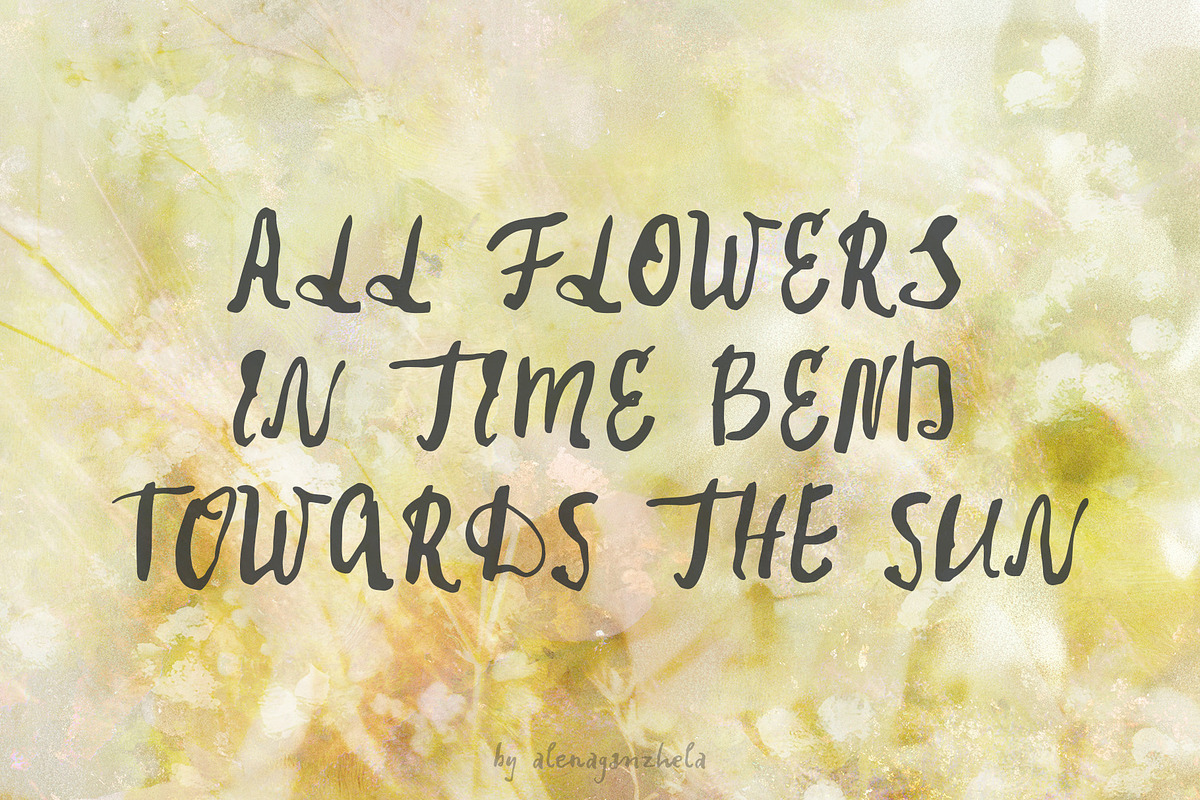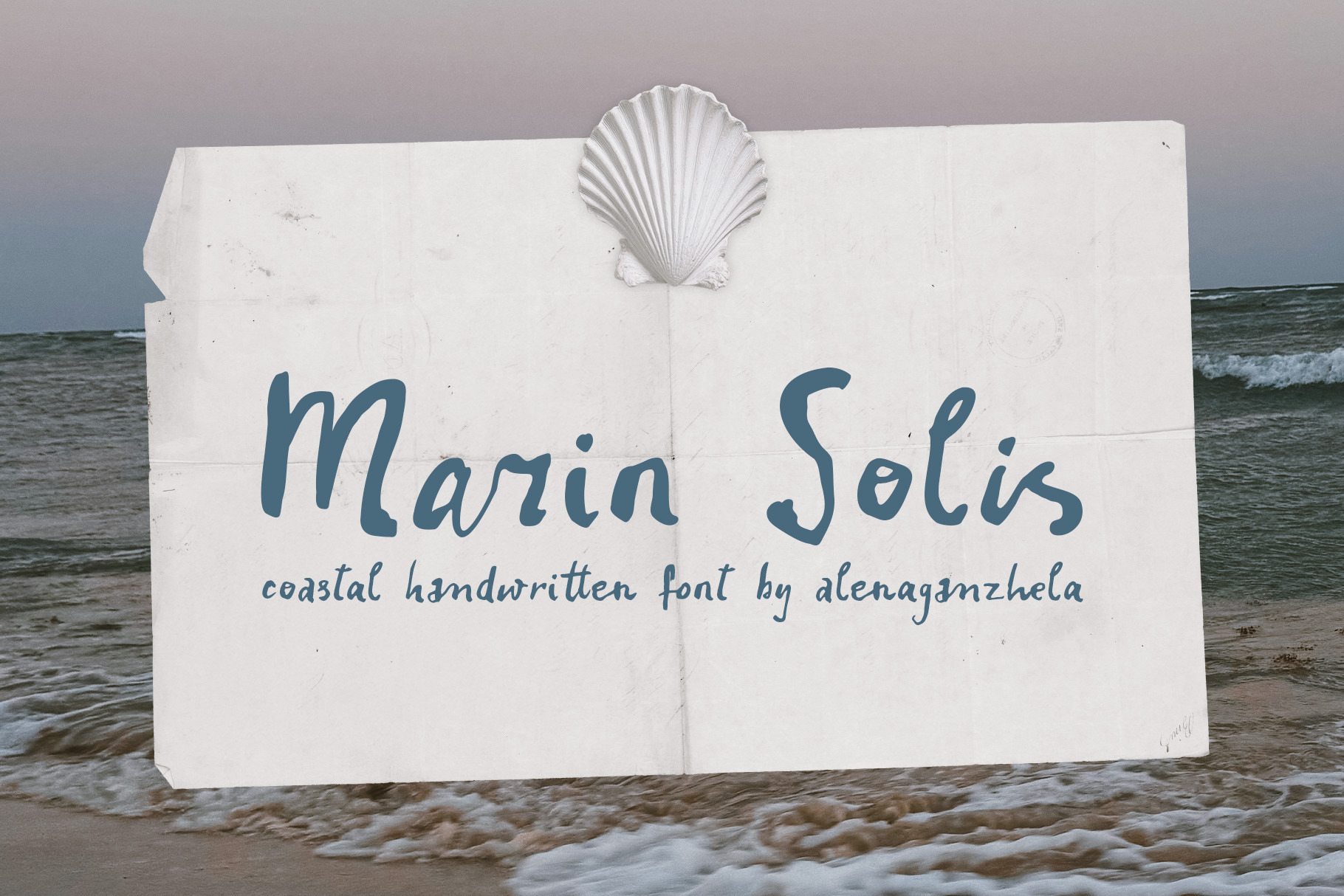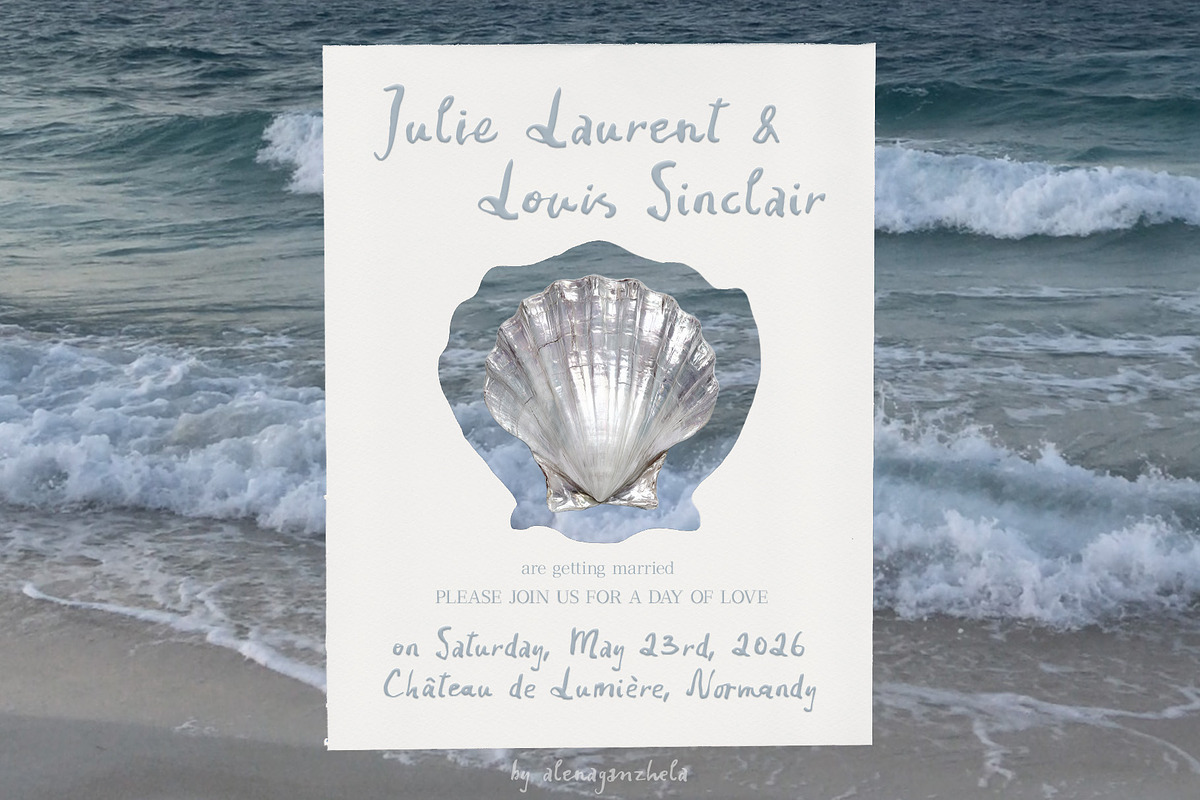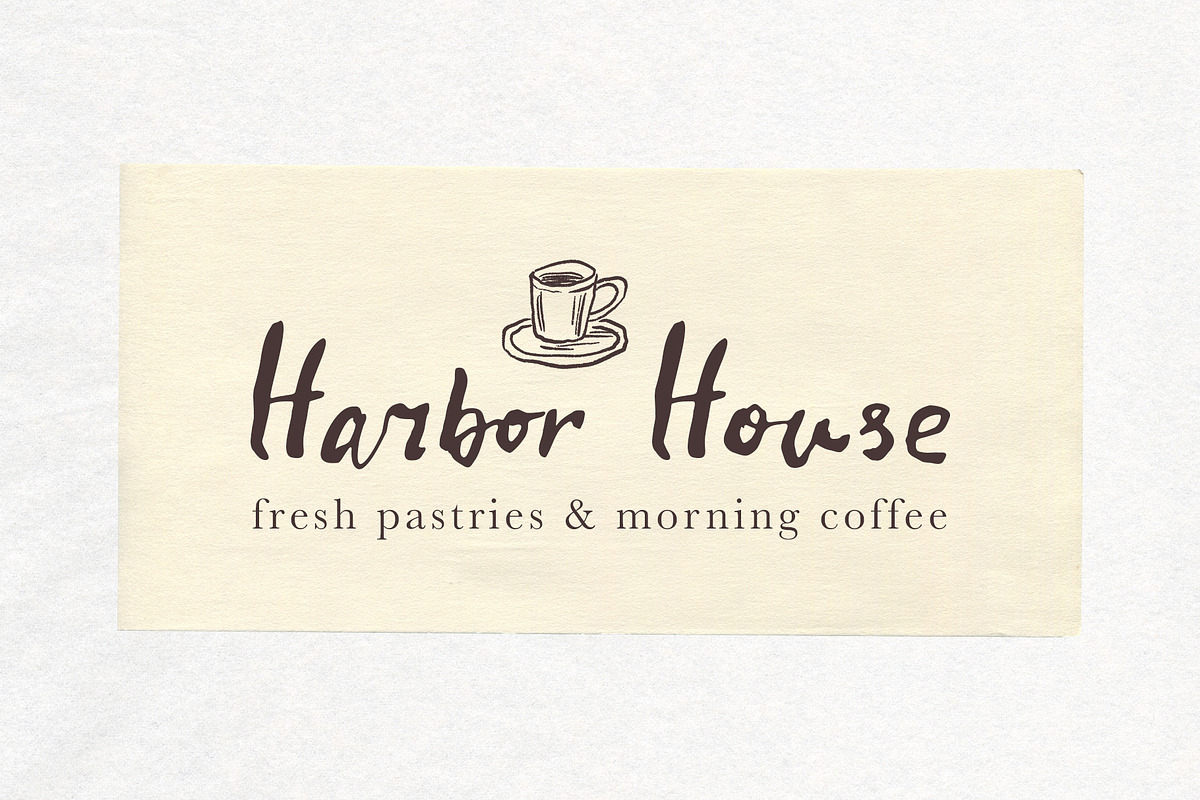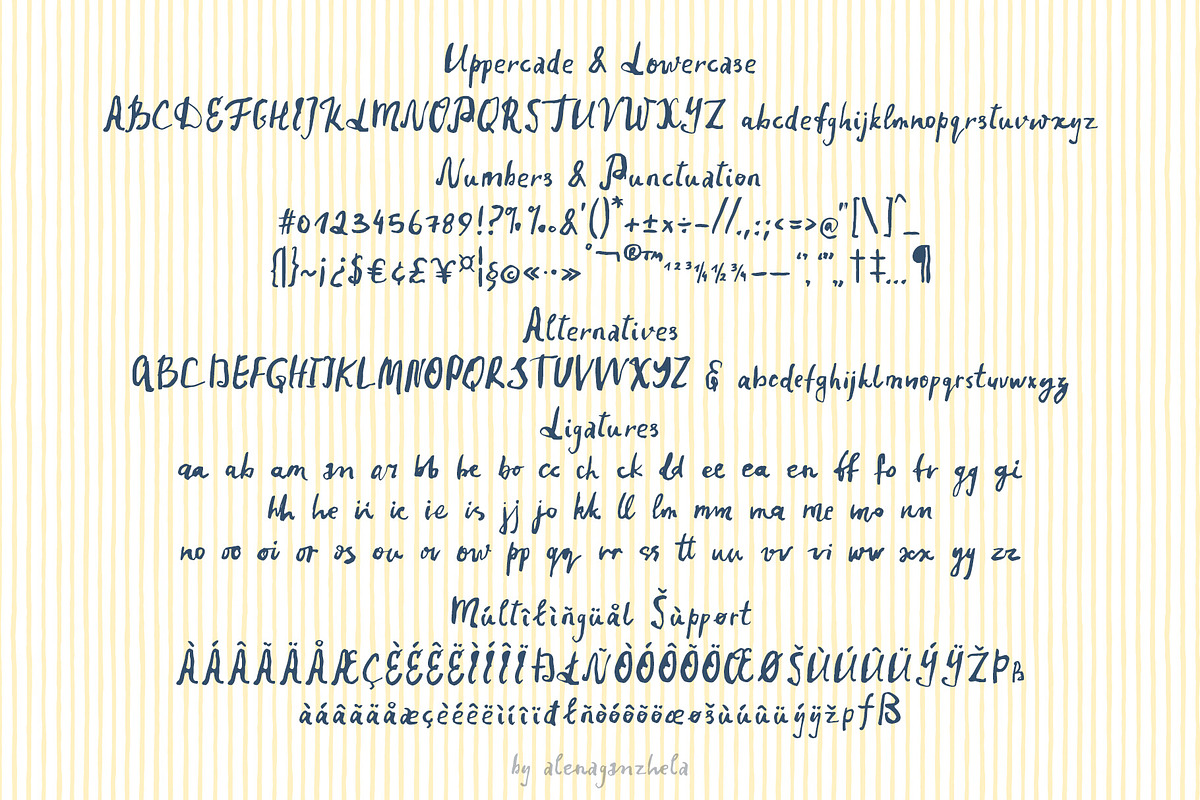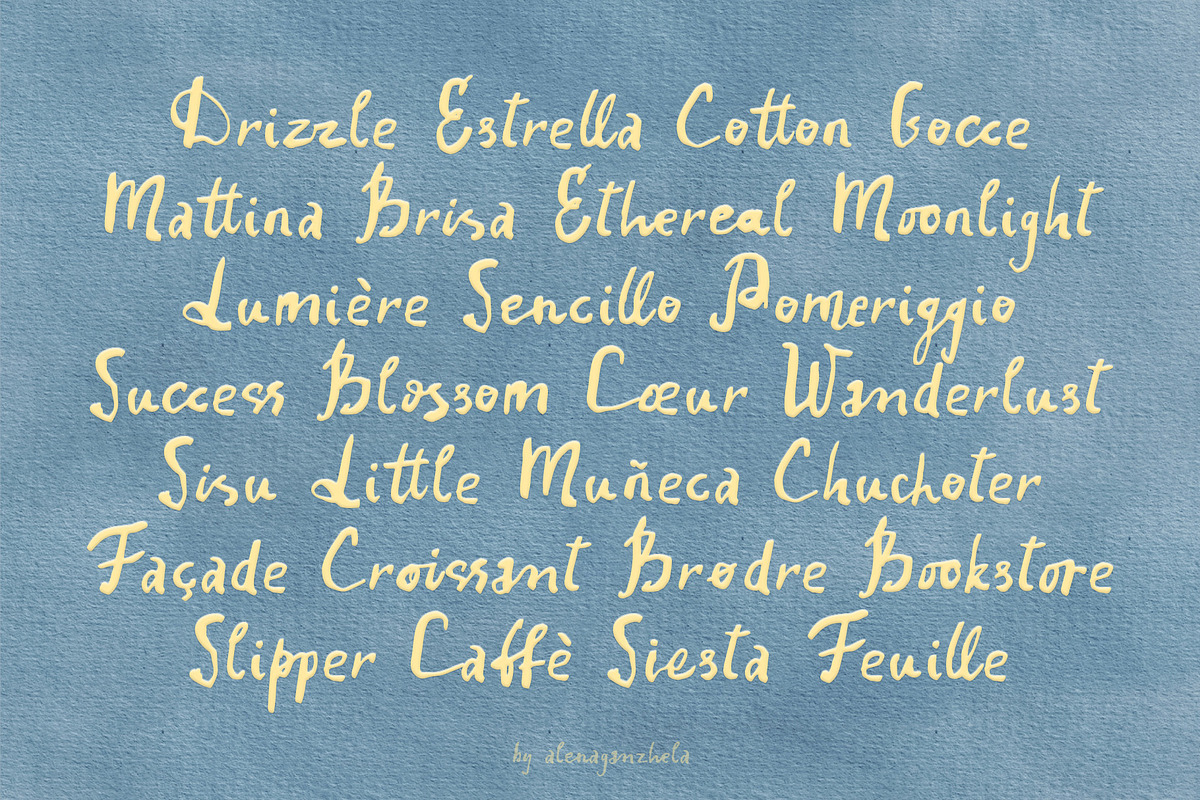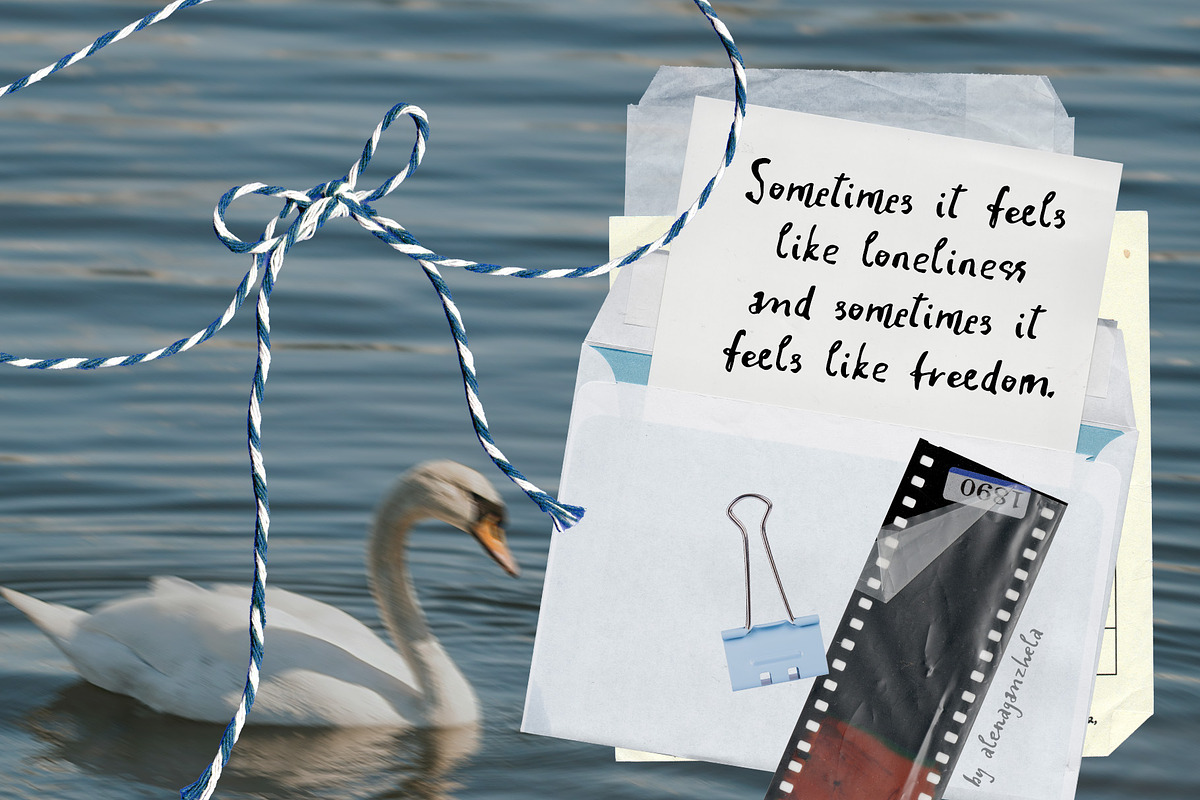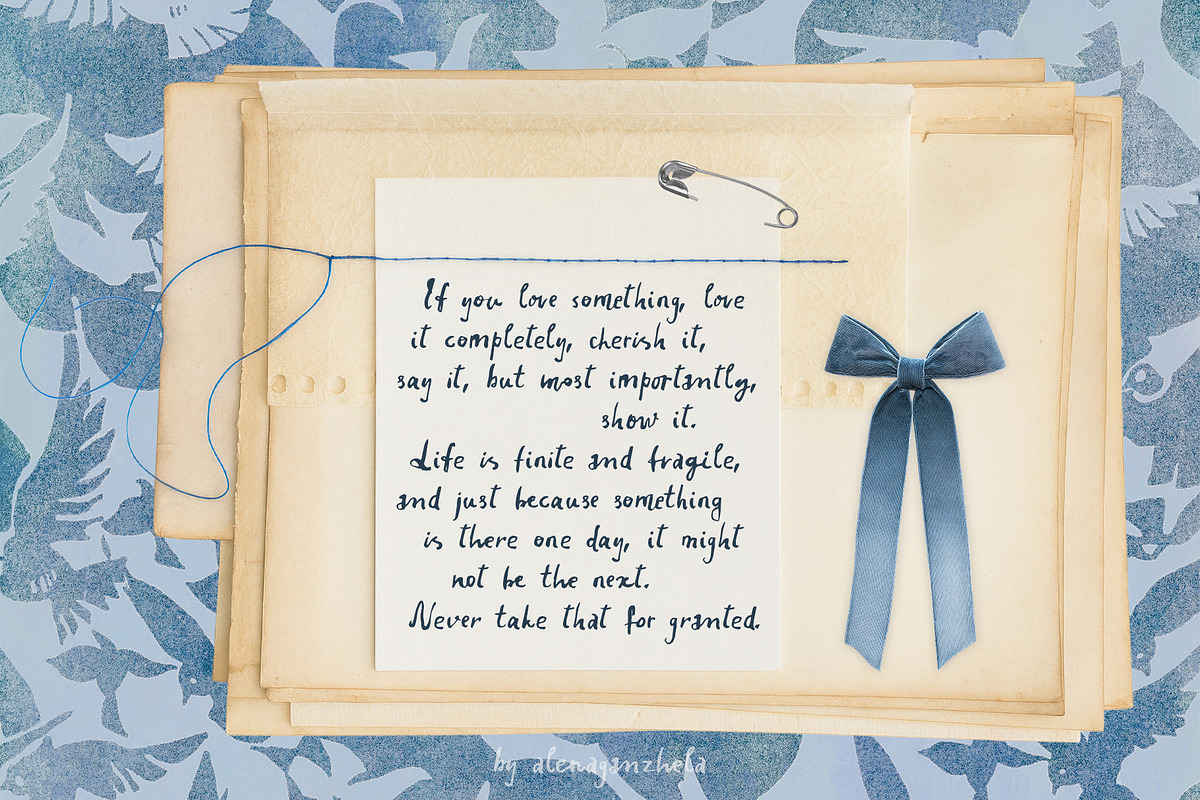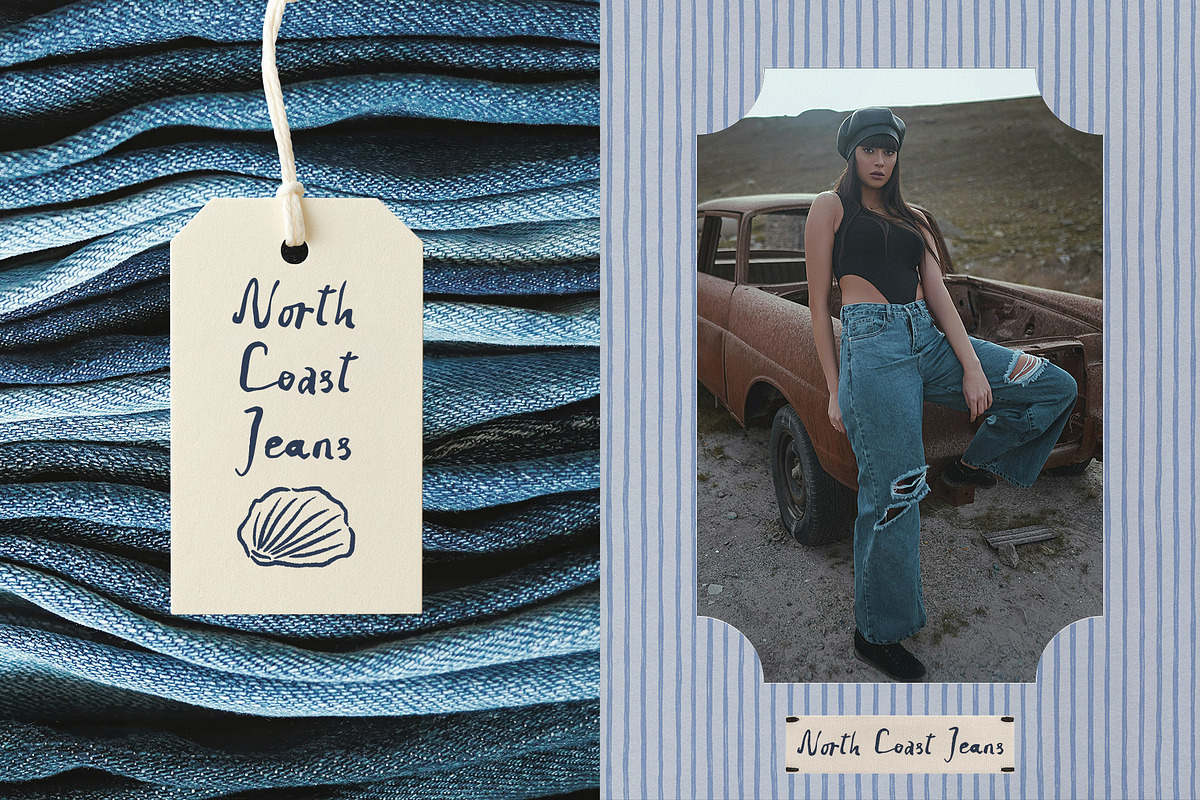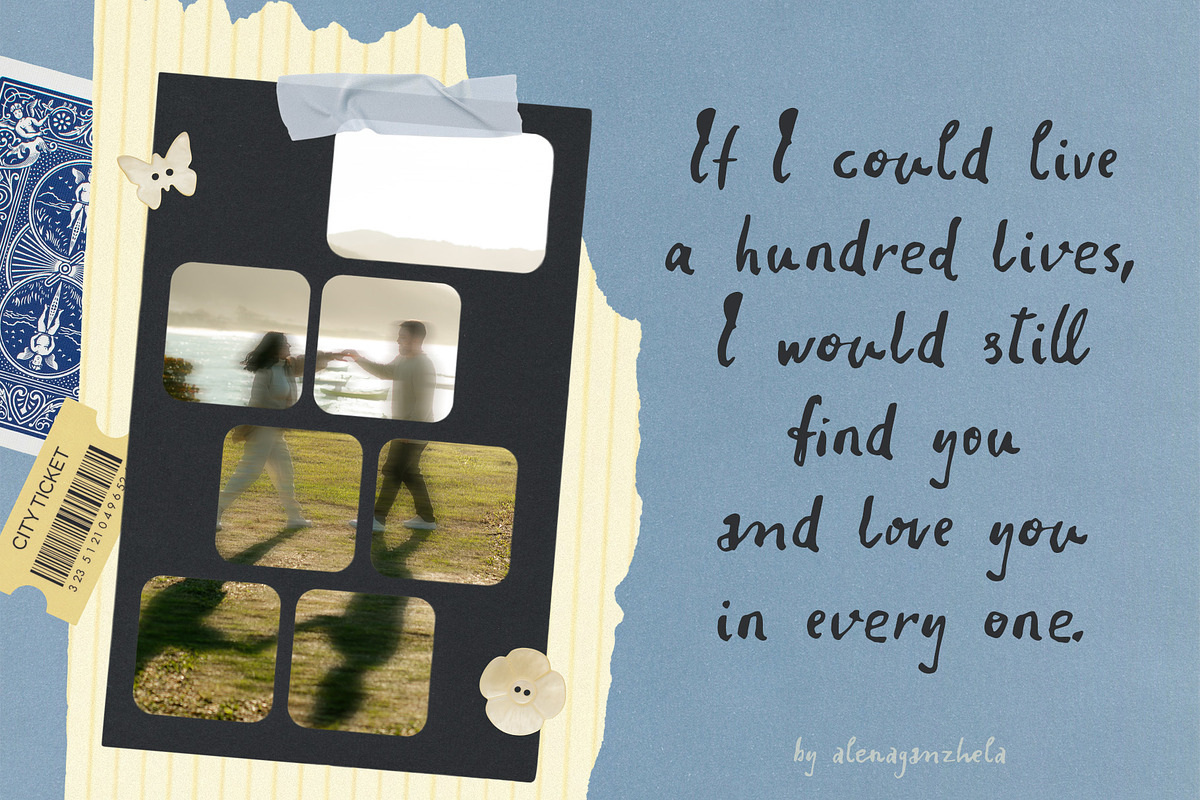
Marin Solis Coastal Handwritten font
Marin Solis is a coastal-inspired handwriten script with a natural, flowing rhythm. It captures the feeling of handwritten letters, seaside journals, and lovely moments by the ocean.
Marin Solis is perfect for projects that need a personal, artistic touch, from coastal wedding stationery to modern journaling aesthetics. This script font works beautifully for wedding invitations, stationery design, journaling and scrapbooking, branding and packaging, quotes and social media graphics, greeting cards and personal projects.